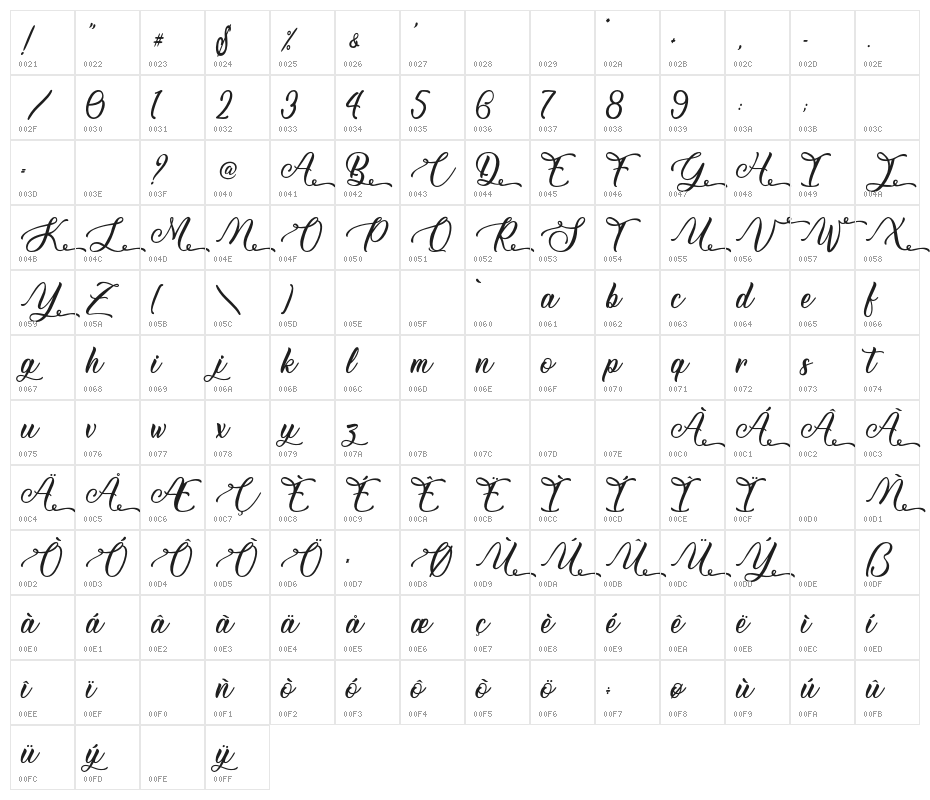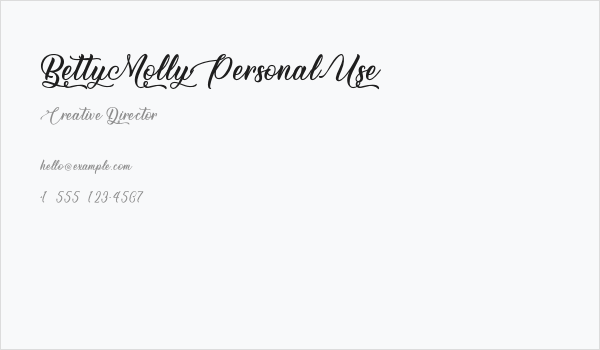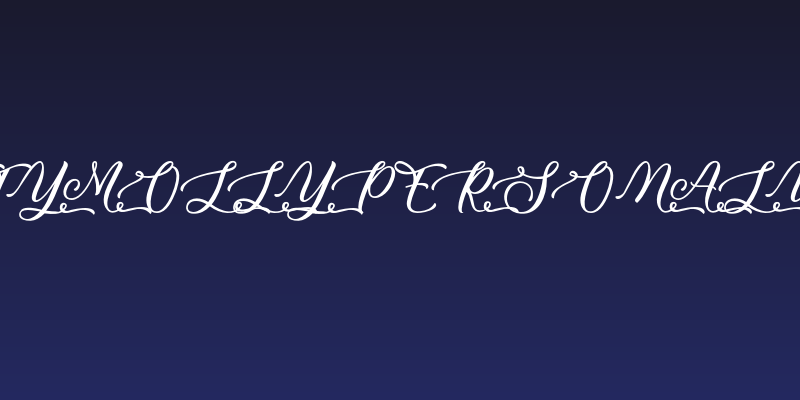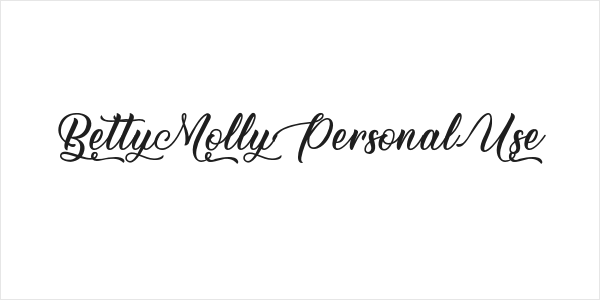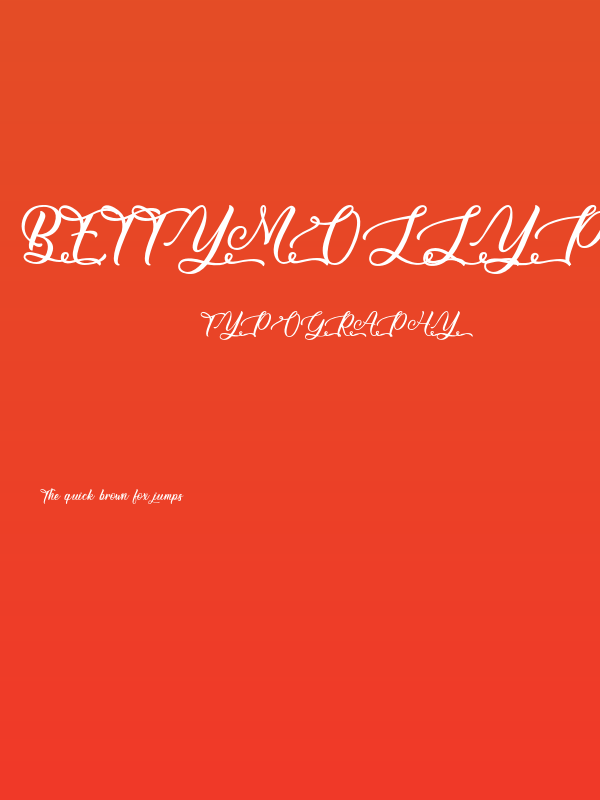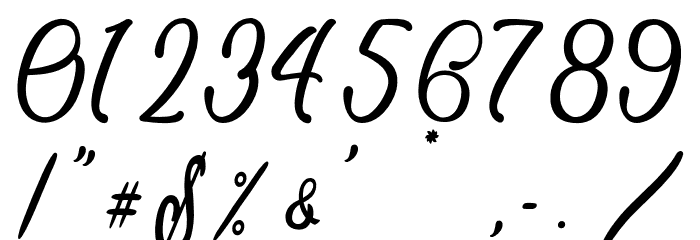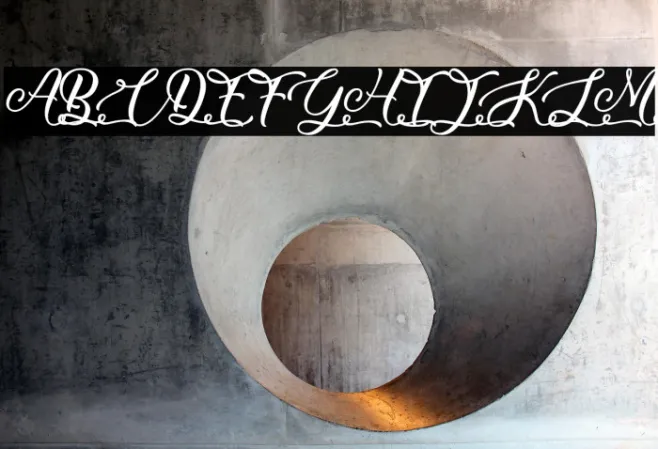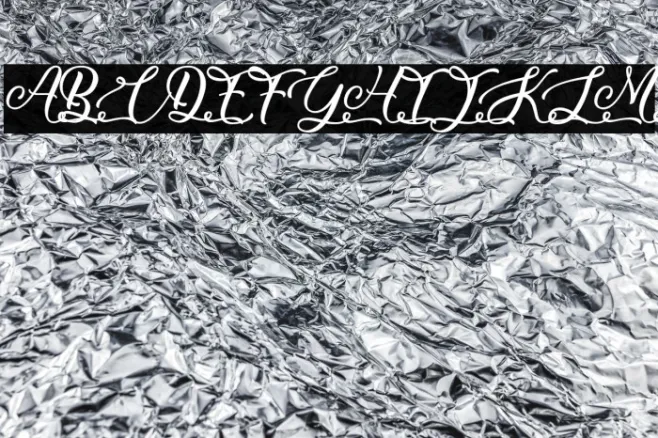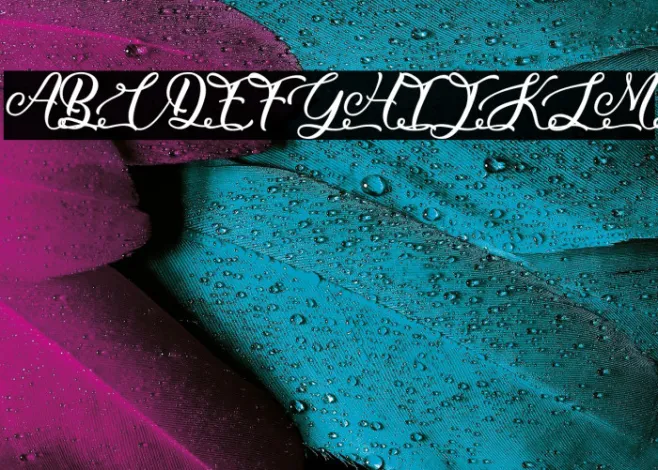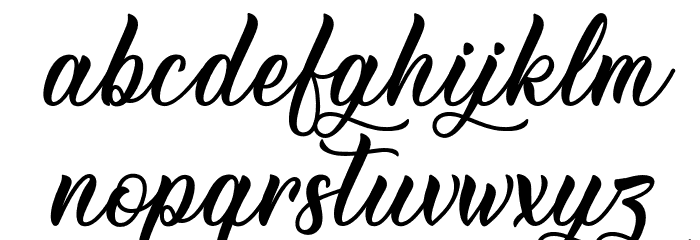
BettyMollyPersonalUse Font
BettyMollyPersonalUse Description
This font features an elegant and flowing script style, characterized by its ornate and decorative swirls. The uppercase letters are particularly elaborate, with intricate loops and flourishes that give a sense of sophistication and grace. The lowercase letters maintain a smooth and connected appearance, enhancing readability while retaining a stylish flair. Numbers and special characters are designed to match the overall aesthetic, ensuring consistency across all text. This font's artistic nature makes it ideal for projects that require a touch of elegance and creativity.